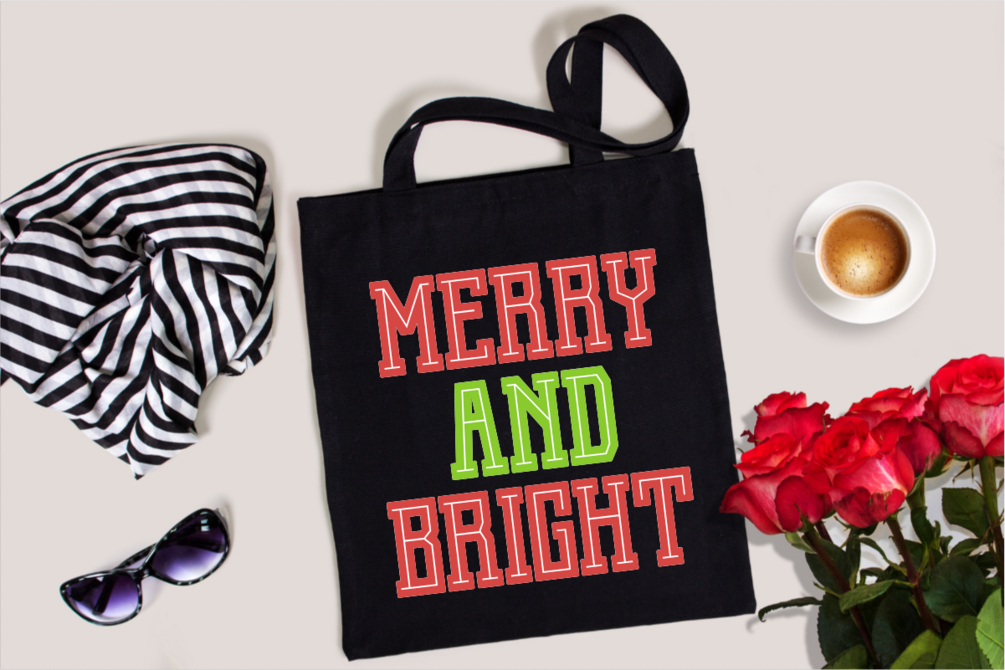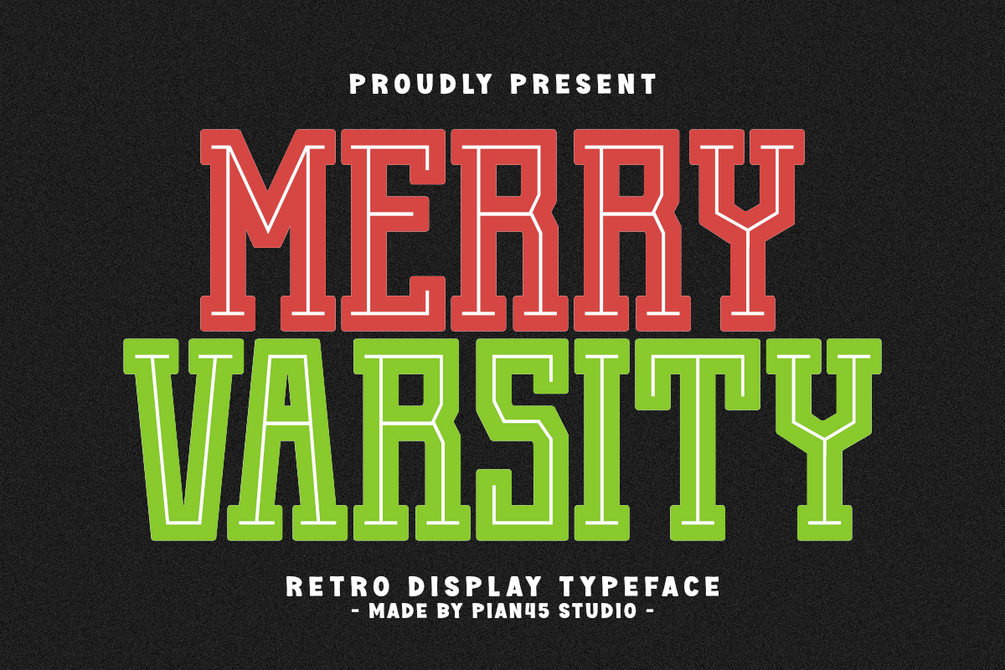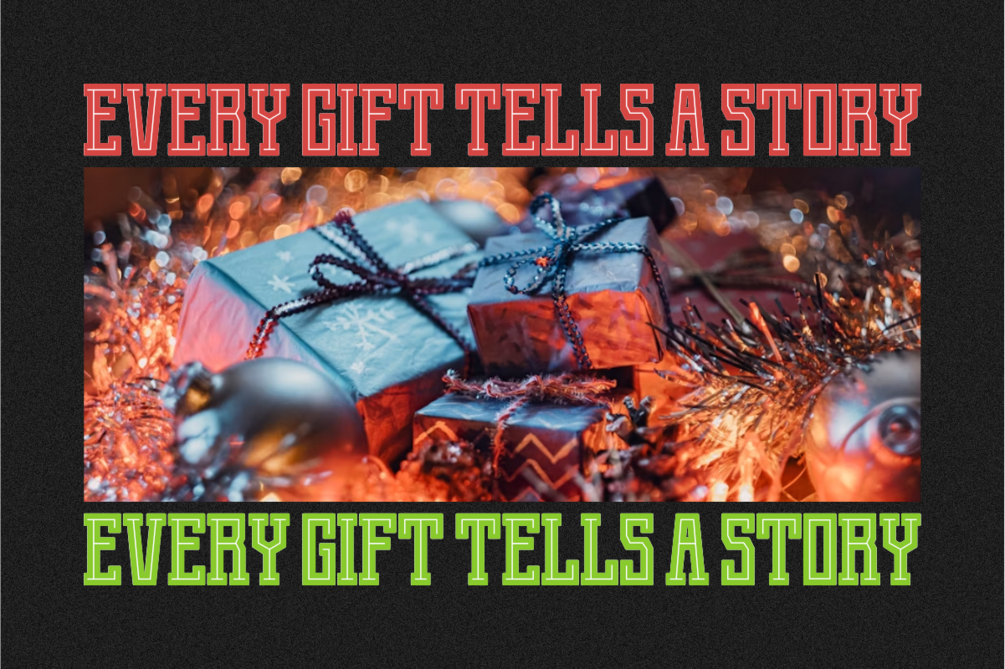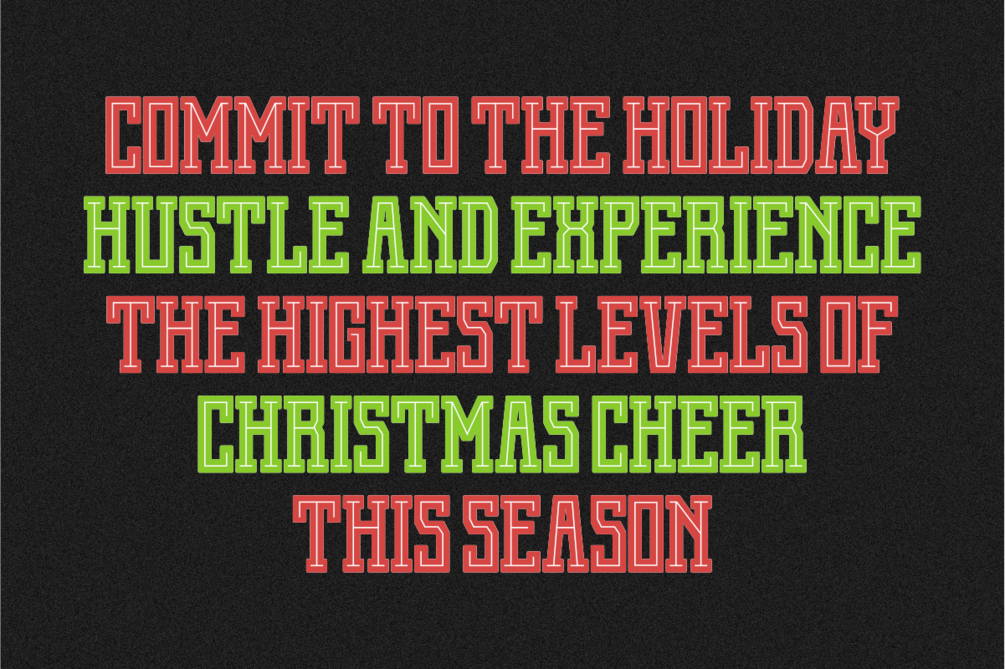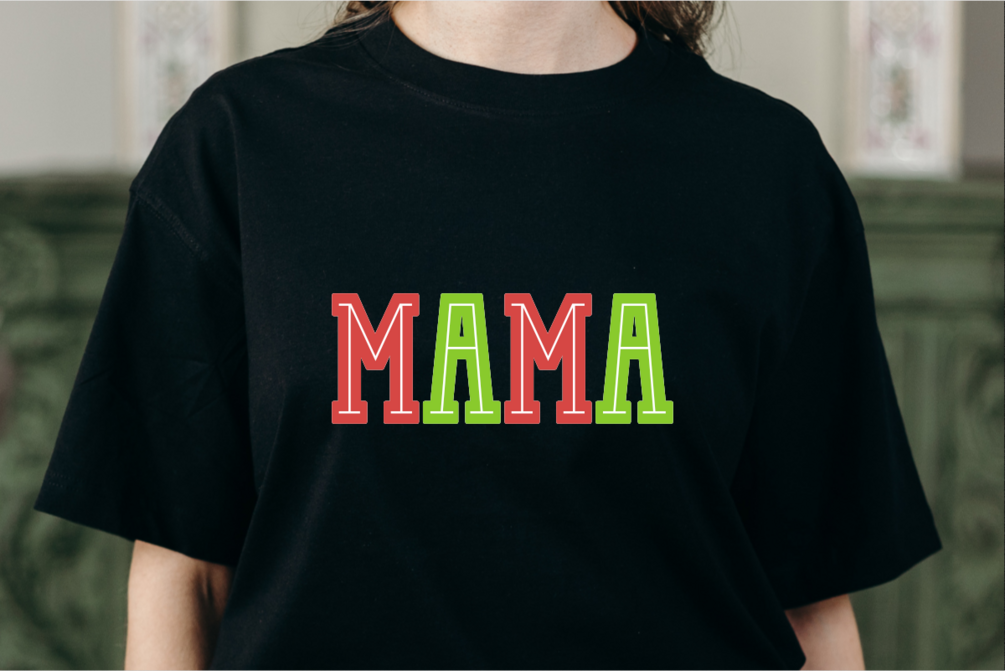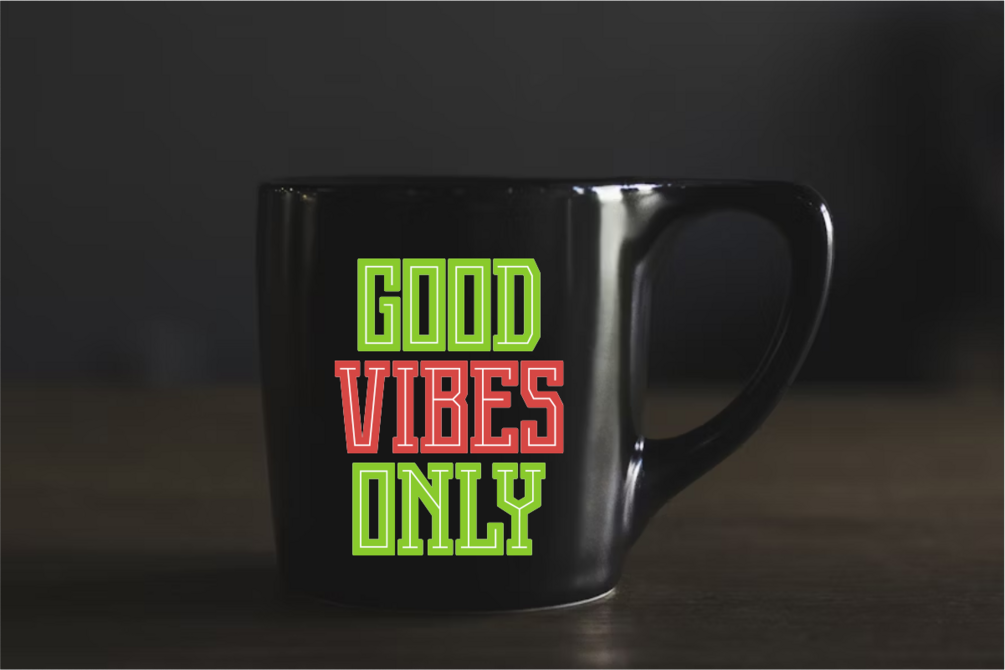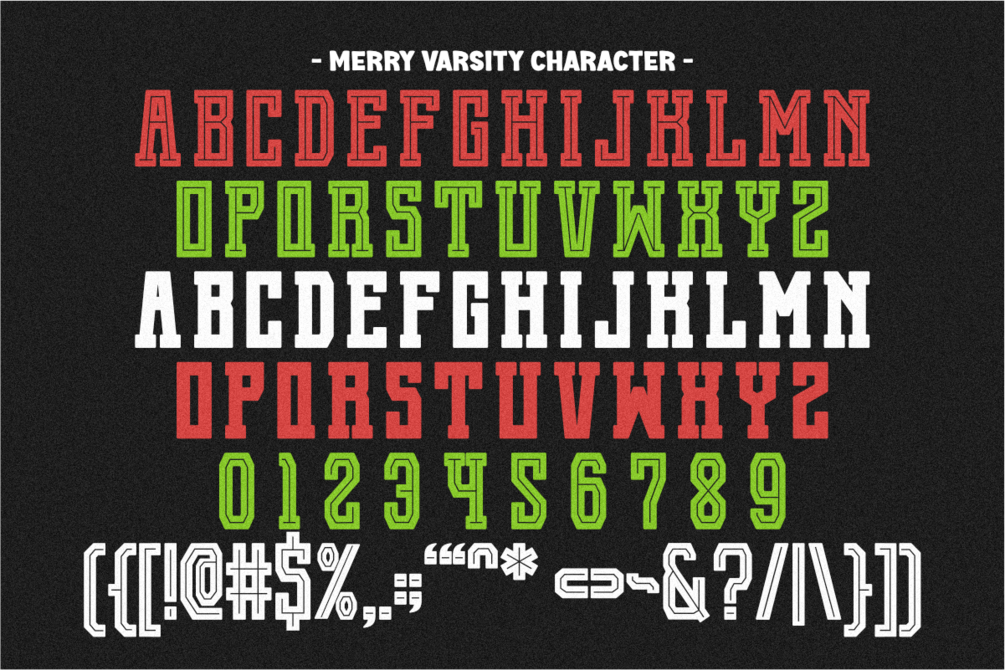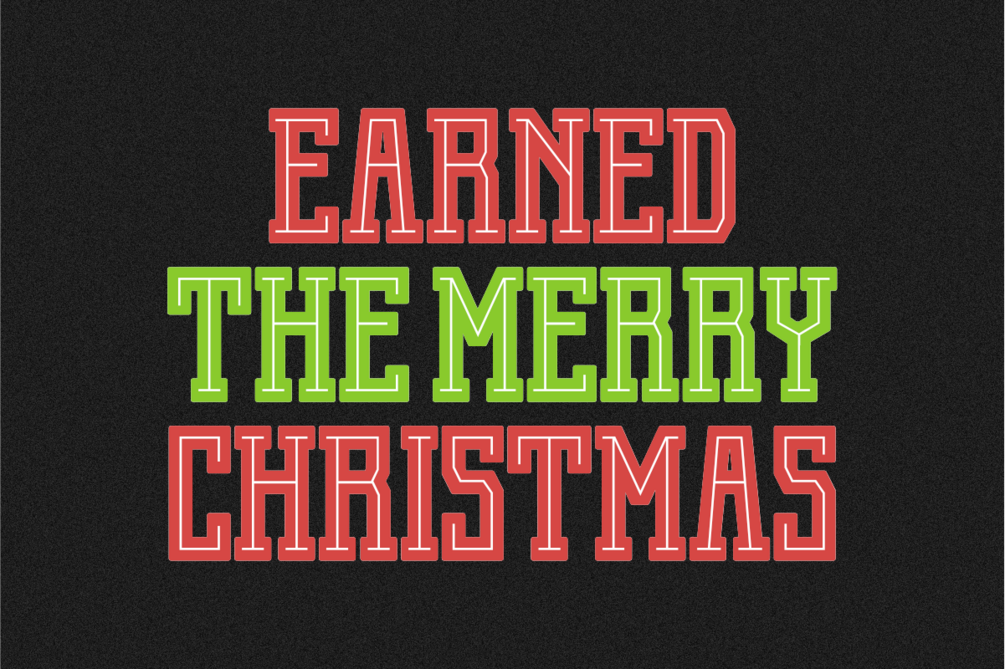
Merry Varsity - Retro Display Font
Merry Varsity is a bold and energetic Retro Display Typeface that perfectly blends the classic collegiate aesthetic with a festive holiday spirit. Featuring both Regular and Outline styles, it's ideal for Christmas apparel, layered designs, seasonal sports branding, and high-impact event posters. This unique all-caps font delivers a punchy, nostalgic, and joyous visual identity, making it the top choice for holiday t-shirts, winter merchandise, and lively December marketing materials.